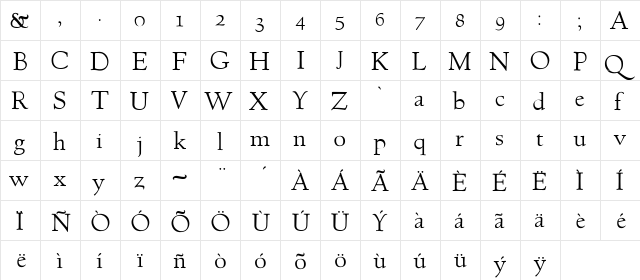
Sonera Regular
| Foundry | Juan Manuel Arboleyda Valdovinos |
| Designer | Juan Manuel Arboleyda Valdovinos |
Design Context for Sonera Typeface
Sonera is a composed and adaptable typeface that performs quietly and consistently across a wide range of design contexts.
Pro Tip: Pair Sonera with a font of contrasting weight or personality to build a more expressive typographic hierarchy.